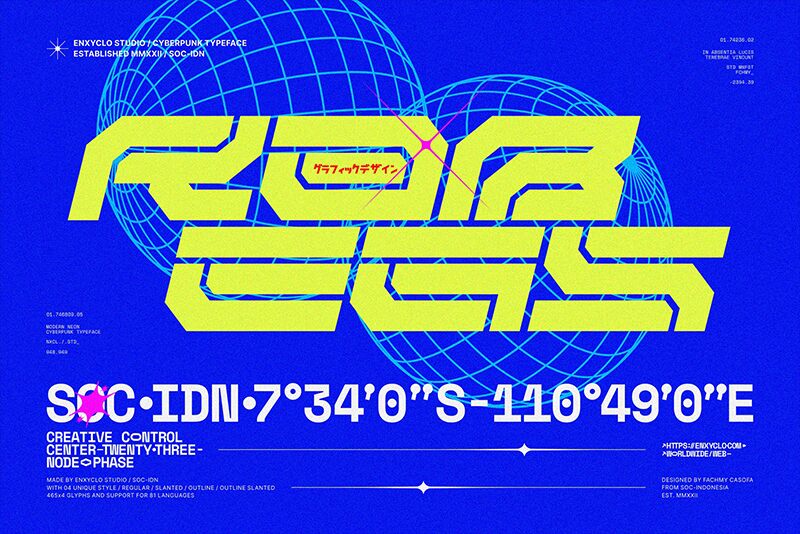
NCL Rabegs font by Enxyclo Studio is a futuristic, bold display typeface with an expanded width. The geometric and angular design of the typeface exhibits a streamlined look with its unique, tech-inspired style. The modern font further captures a captivating aesthetic suitable for attention-demanding designs.
Free for personal use, NCL Rabegs can be used on technology blogs, app interfaces, event posters, branding designs, merchandise creations, advertising campaigns, and album covers. It’s also a brilliant option for logos in electronics or automobile companies along with gaming graphics and other visual projects.